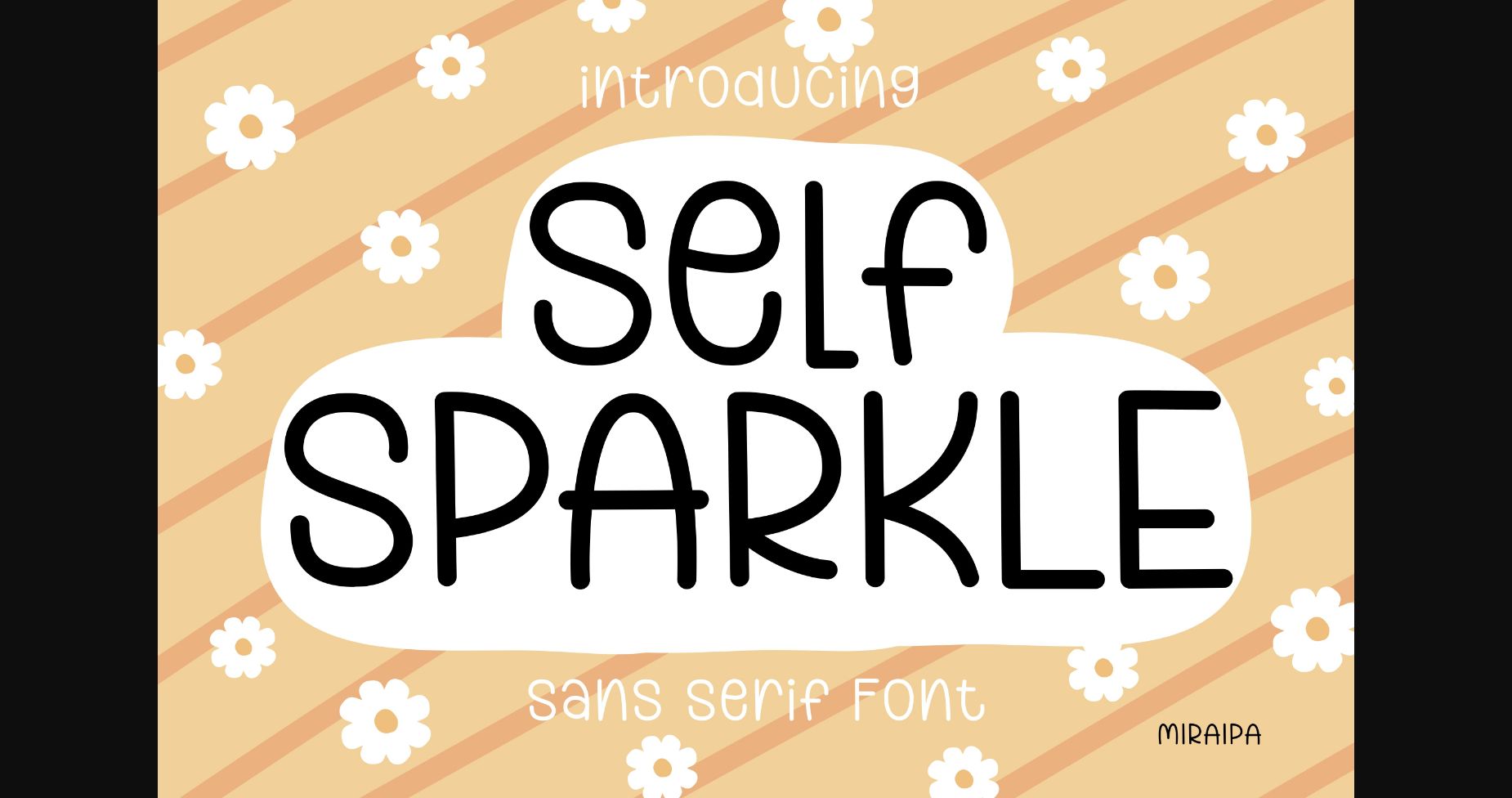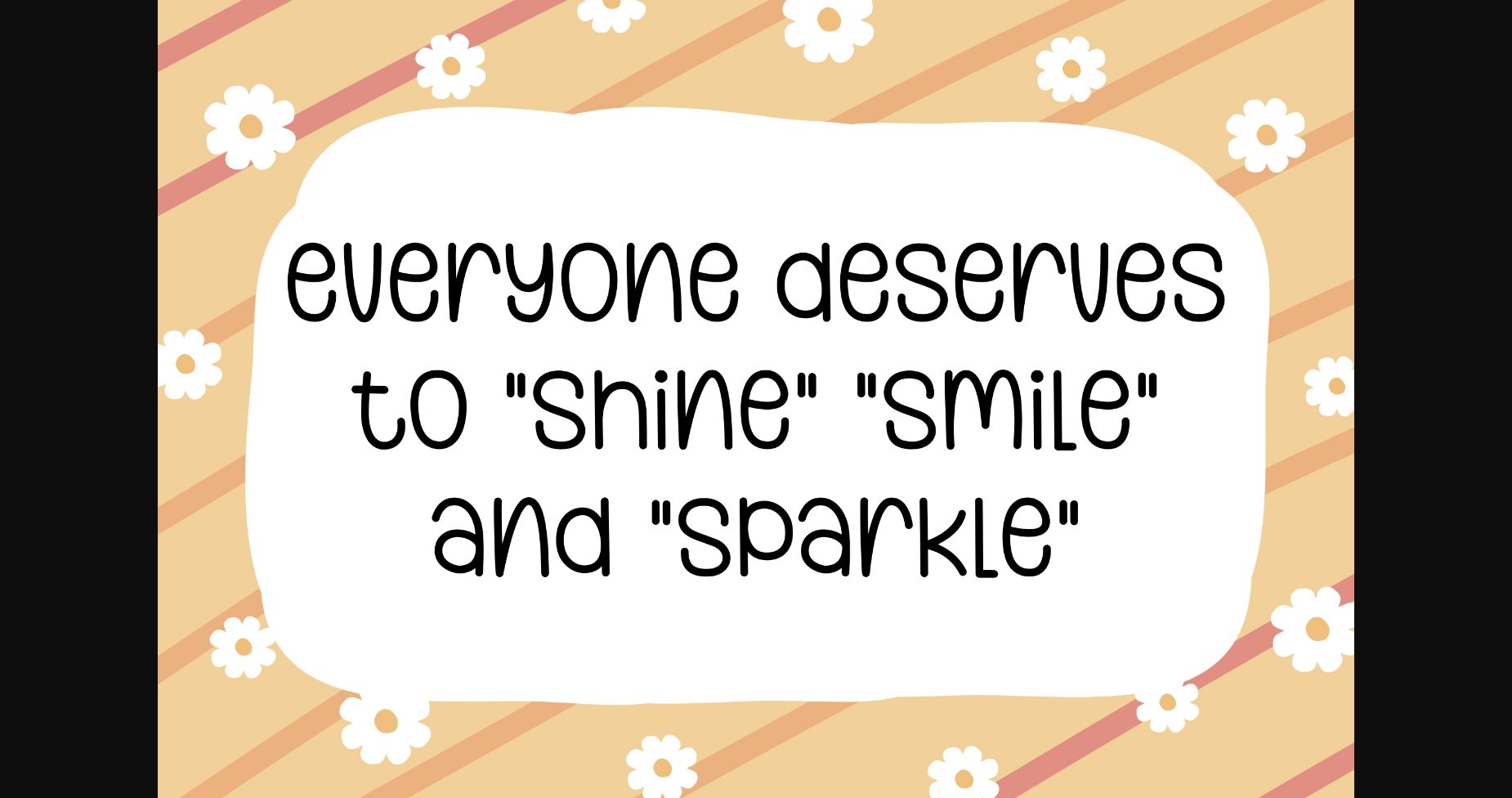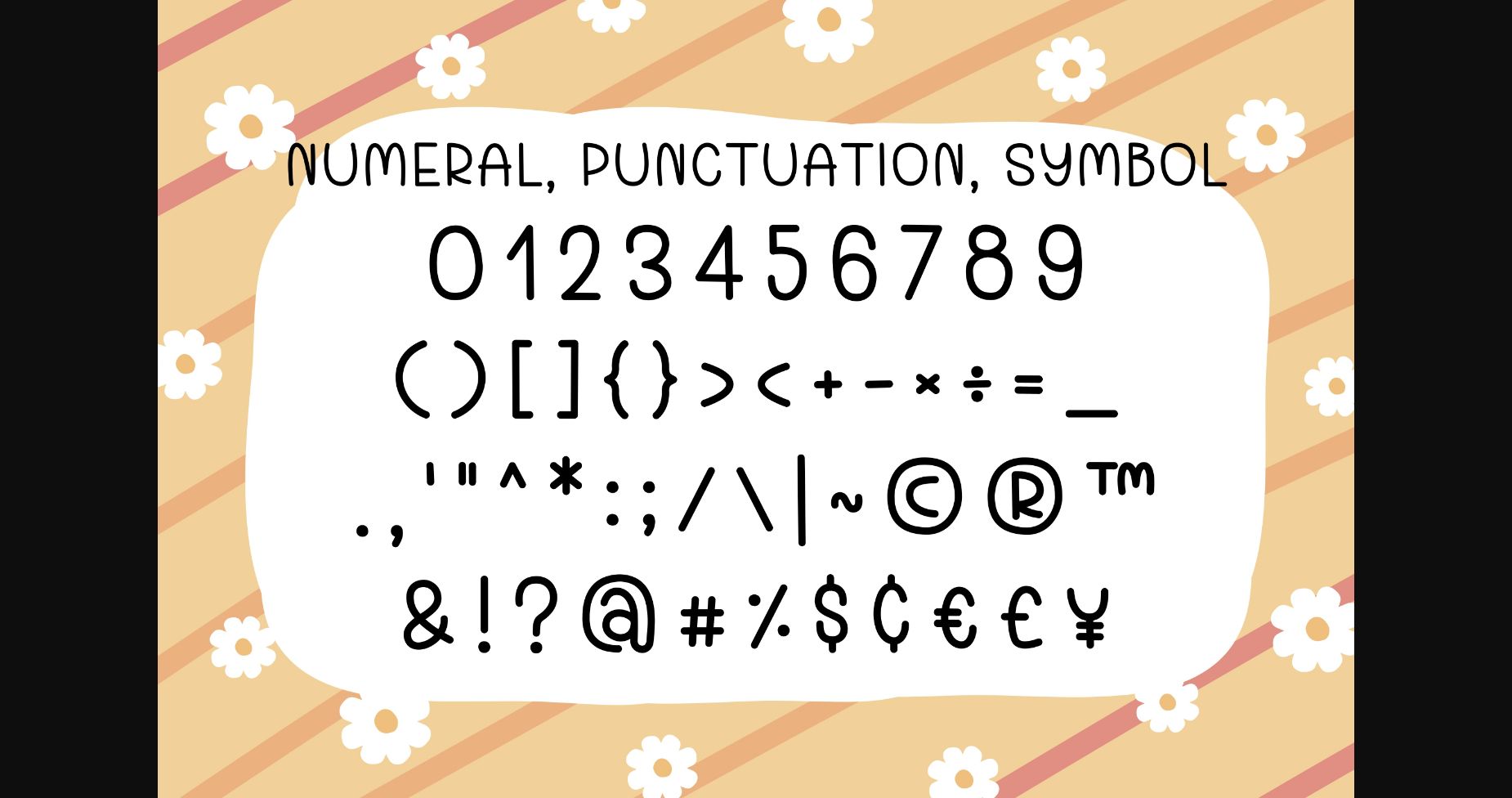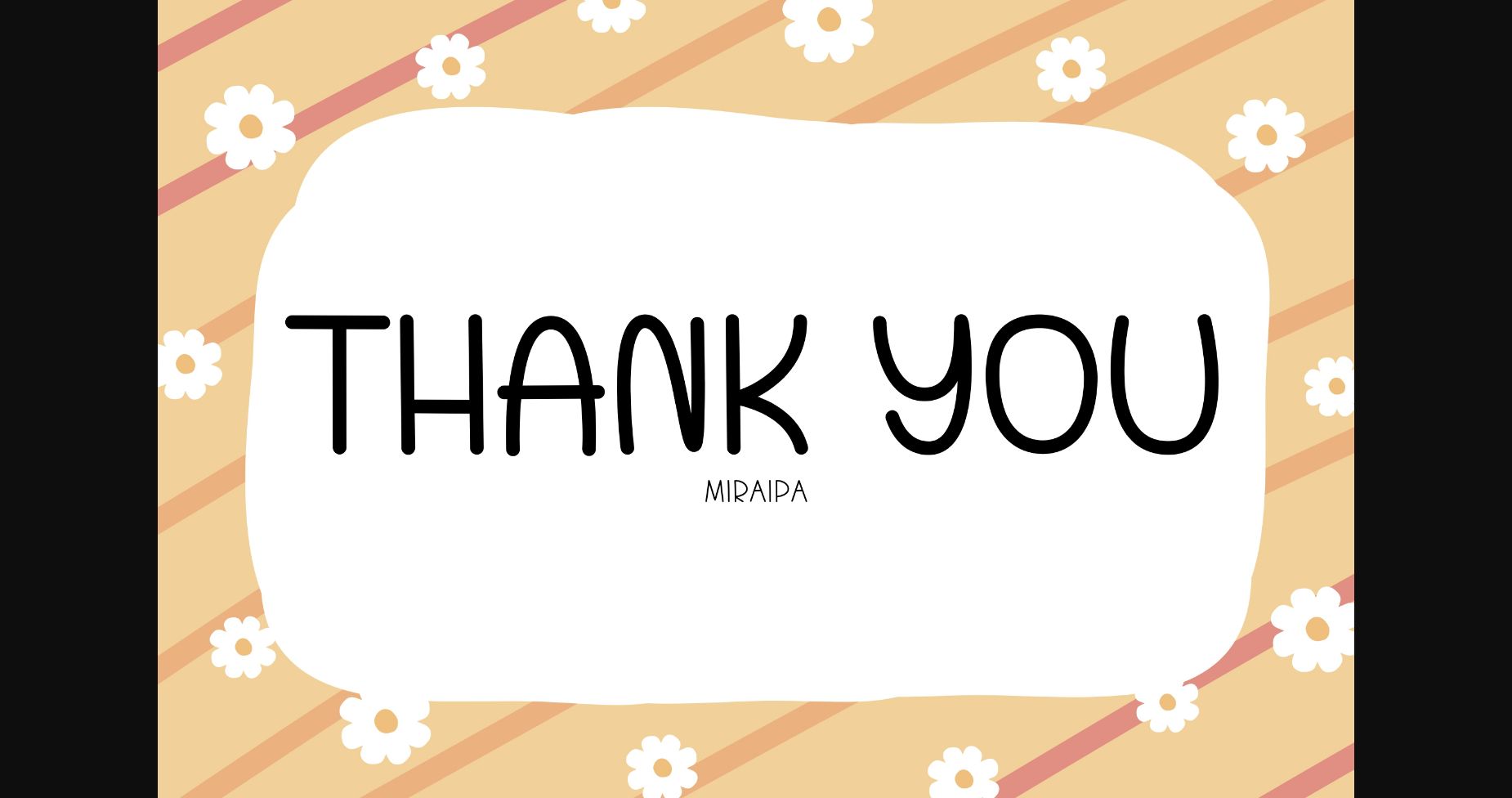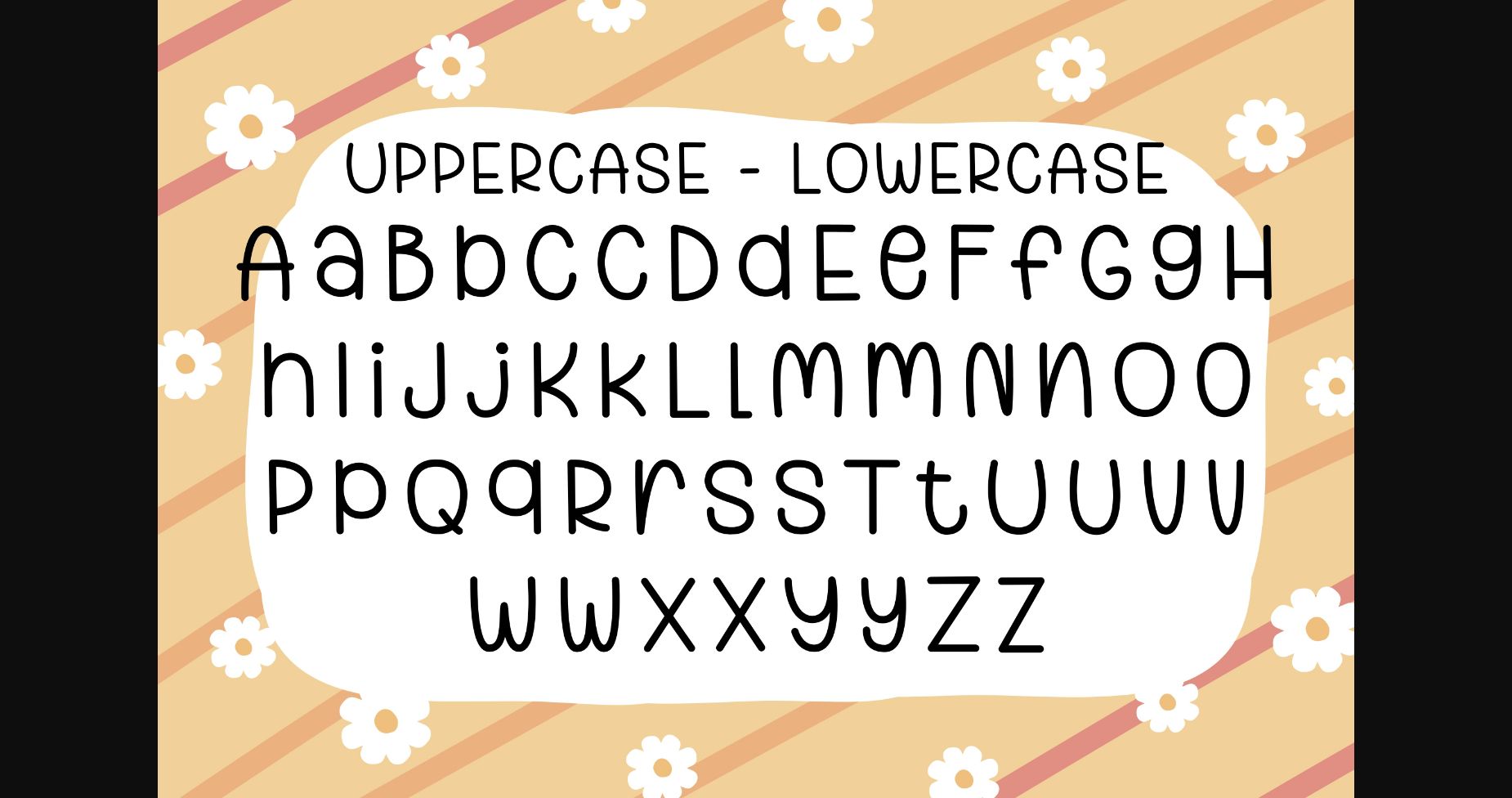
HomeSans Serif FontsSelf Sparkle Font Sans Serif Fonts Self Sparkle Font FacebookXPinterestWhatsApp 1 of 7 ... Self Sparkle Font Poster 2... Self Sparkle Font Poster 3... Self Sparkle Font Poster 4... Self Sparkle Font Poster 5... Self Sparkle Font Poster 6... Self Sparkle Font Poster 7... About Self Sparkle Font Self Sparkle is a friendly and sweet handwritten sans serif font. This minimalist and clean vibe can easily apply to your favorite designs such as book covers, magazines, social media posts, invitations, and so much more! DOWNLOAD NOW People also explored Erenite Font Antonio Font Married Font Plumeria Font Hankey Font Bulgatti Font Angelive Font Spicy Pizza Font Baby Signature Font 348 0 TagsSelf Sparkle Font Previous articleFx Neofara FontNext articleSysmatic Font LEAVE A REPLY Cancel reply Comment: Please enter your comment! Name:* Please enter your name here Email:* You have entered an incorrect email address! Please enter your email address here Website: Save my name, email, and website in this browser for the next time I comment. Personal Use Free Midnight Show Personal Use Free Read more about this font Histeria Bites Personal Use Free Read more about this font Haris Wood Personal Use Free Read more about this font Deling Personal Use Free Read more about this font BLOG Free Fonts Risk: Why Free Fonts Can Be Dangerous for Designers Free Fonts Risk: Why Free Fonts Can Be Dangerous for Designers Using free fonts is a common practice in web and graphic design. However, the... Free vs Paid Fonts: Why Investing in Premium Fonts Is Worth It Fonts That Capture the Spirit of New York City The 10 Best Handwriting Fonts to Add Personality to Your Designs